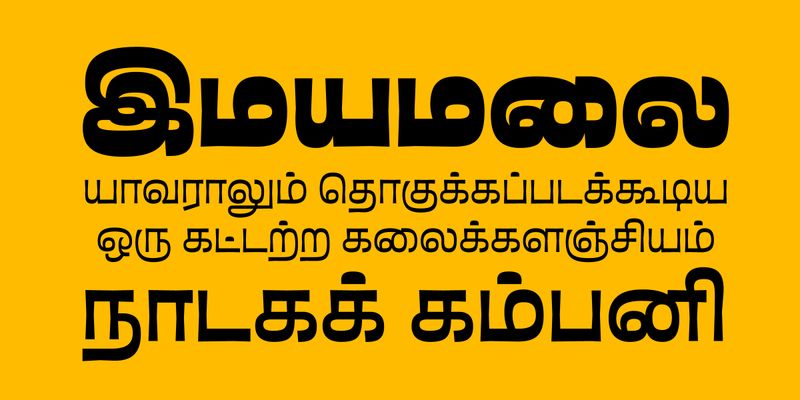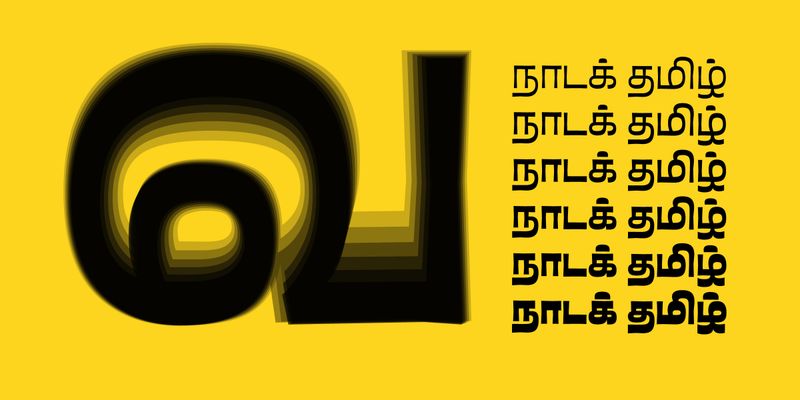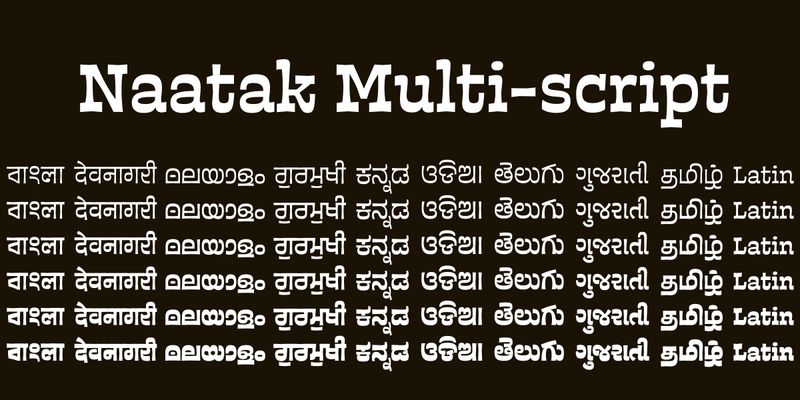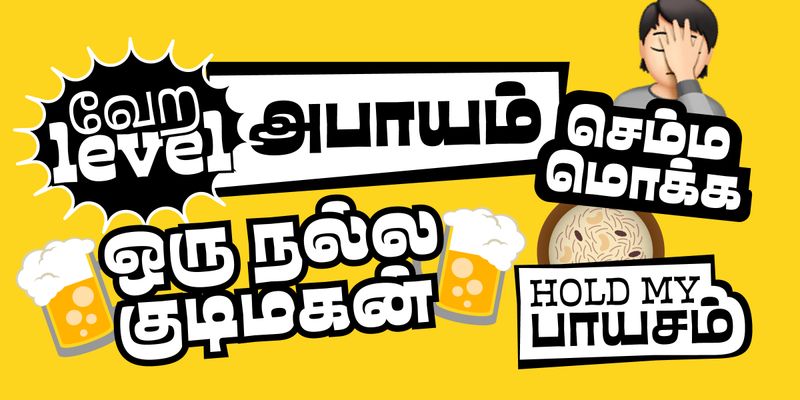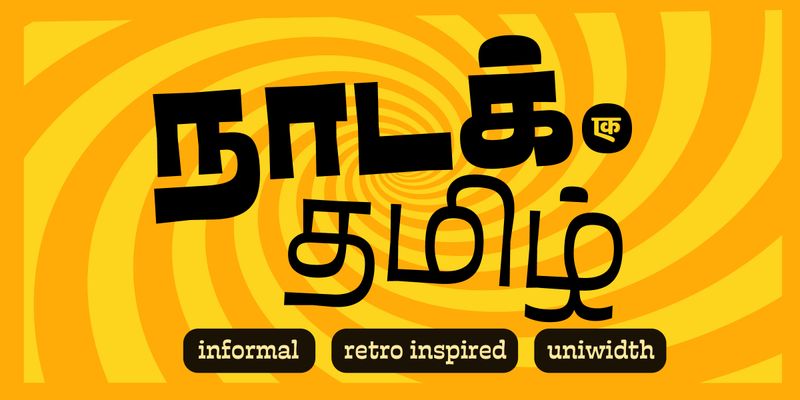
Naatak is an informal, retro-inspired, uni-width type family, influenced by local street lettering, handwritten comics, and book titles. It’s playful nostalgia is captured in its unpolished curves, intentional irregularities, and a striking horizontal stress. The heavy weights are ideal for headlines, while lighter weights suit taglines and comic blurbs